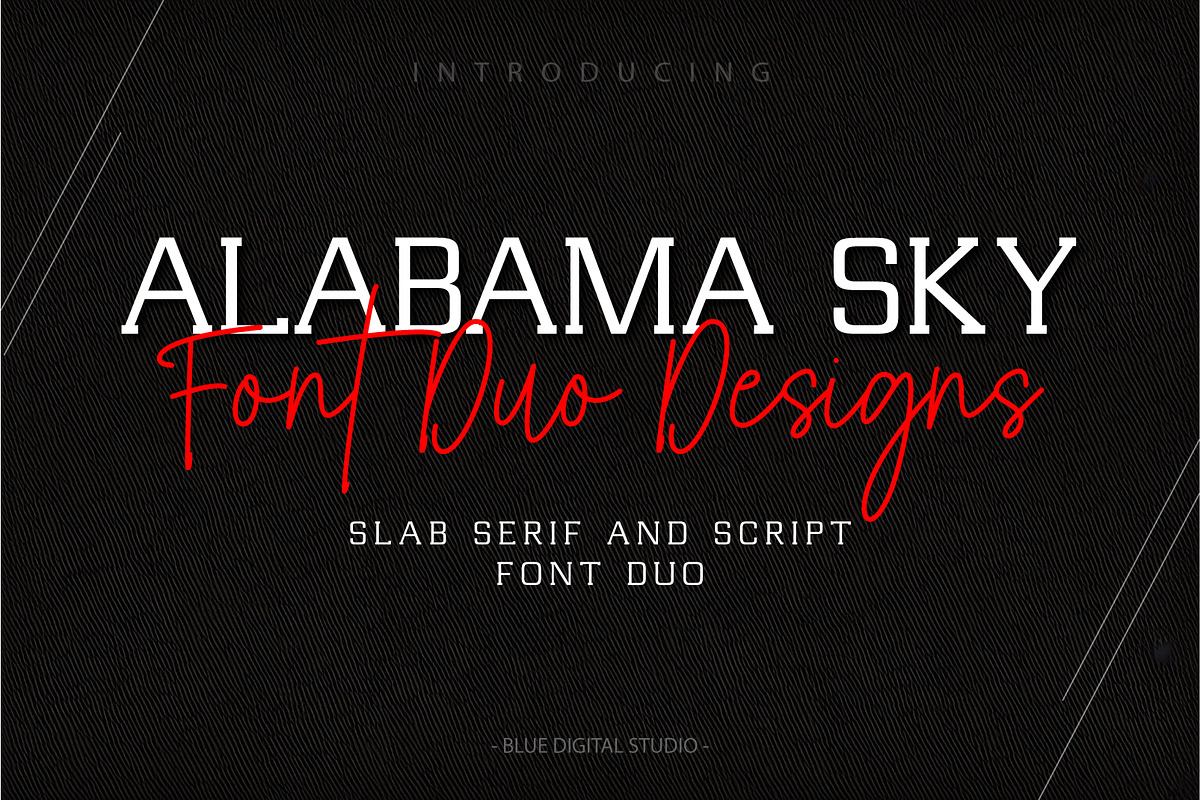
Alabama Sky FontDUO Serif & Script Free Download
Alabama Sky FontDUO Serif & Script Free Download is a charming and elegant font pair that blends classic serif structure with the grace of a handwritten script. Perfect for wedding invitations, branding, logos, packaging, and lifestyle content, this duo adds both professionalism and personality to your designs.
The serif font brings timeless sophistication and clean readability, while the script font adds a soft, romantic flair—making them ideal for combining headlines with signature-style accents. Whether you're designing for a rustic chic aesthetic or modern southern charm, Alabama Sky adapts beautifully to your creative direction.
Elevate your designs with the graceful balance and southern-inspired charm of Alabama Sky.